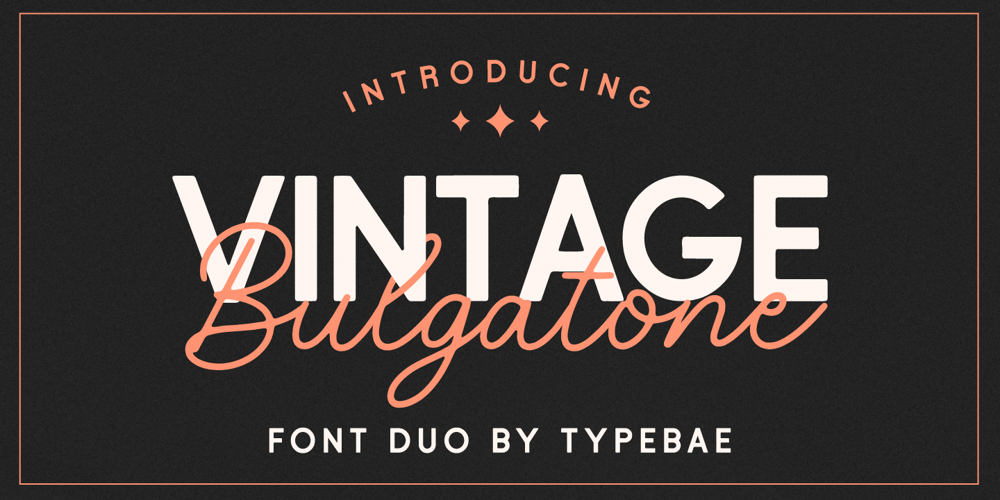
Bulgatone Font Family was designed by Iqbal Pauji and published by Typebae. Bulgatone contains 2 styles and family package options. Bulgatone is a handwritten font with vintage looks. It is perfect to create beautiful vintage typography on your any project like t-shirt, merchandise, logo label, poster, magazine, packaging, quotation and more.What’s Included? Uppercase & Lowercase Numbers & Punctuation Multilingual Support PUA Encoded